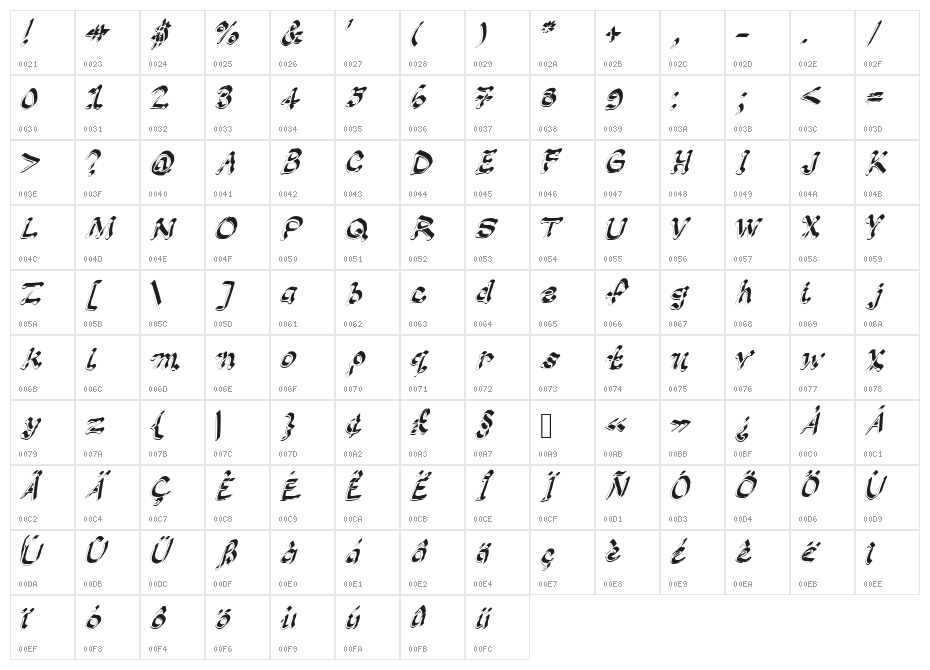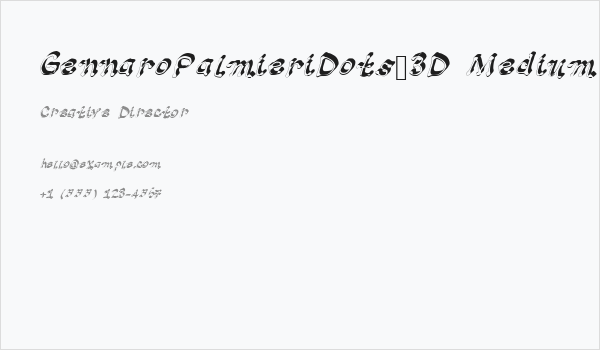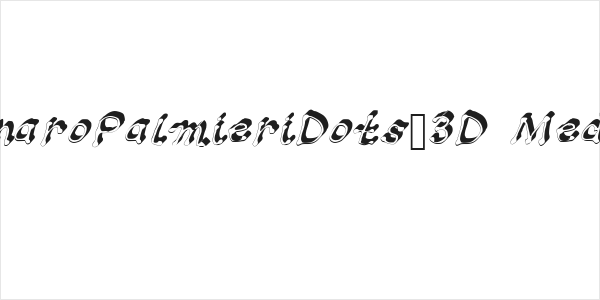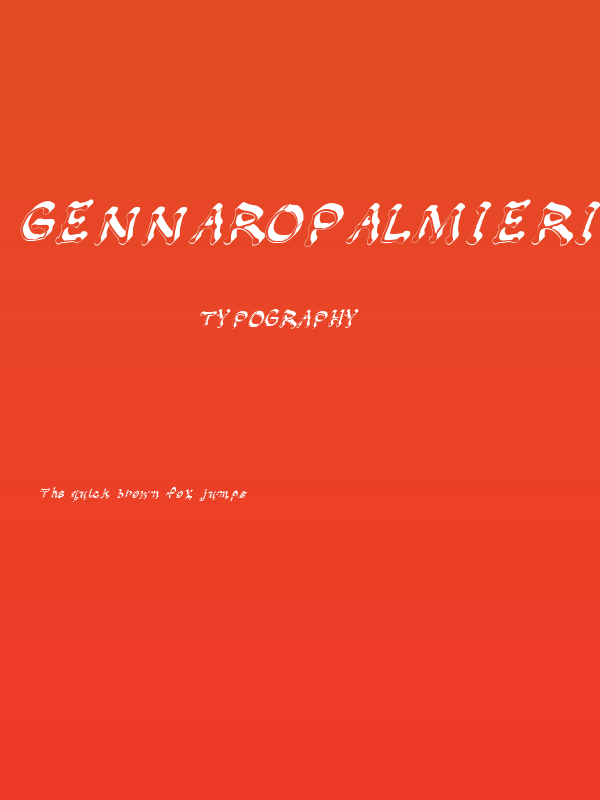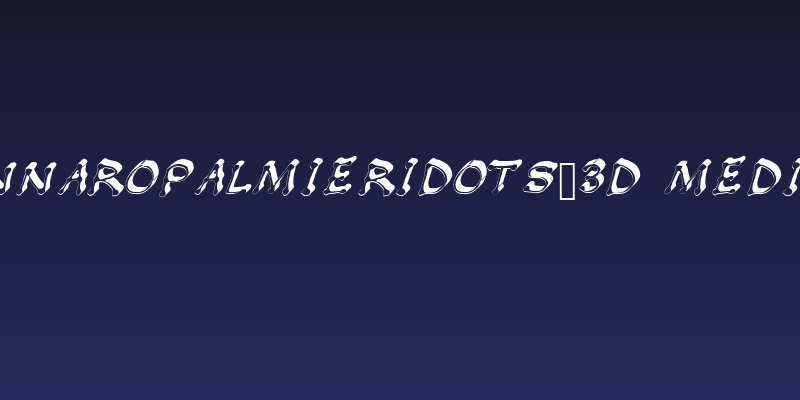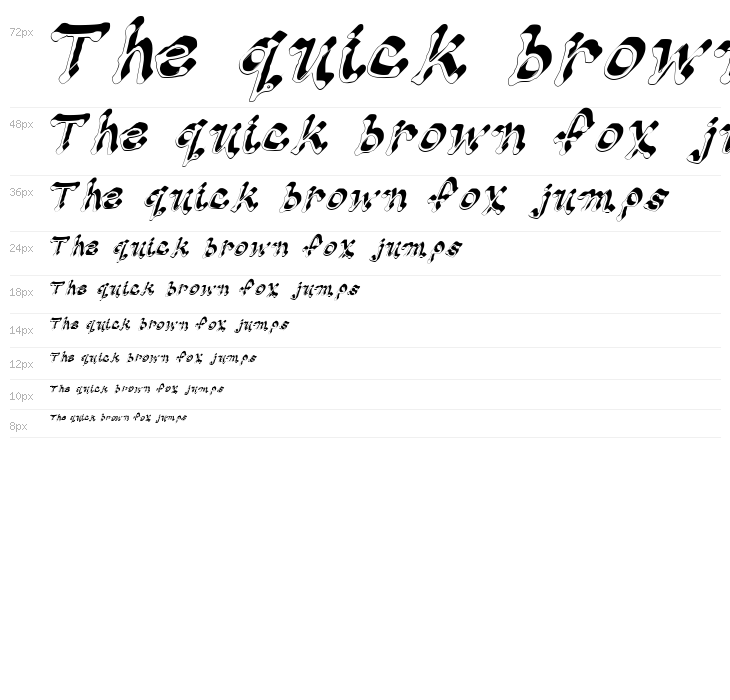
GennaroPalmieriDots_3D Medium Font
GennaroPalmieriDots_3D Medium Description
This font features a unique 3D effect that gives each character a shadowed, layered appearance. The letters are bold and dynamic, with a playful yet sophisticated style. The uppercase and lowercase letters maintain a consistent design, with smooth curves and sharp edges that enhance the three-dimensional illusion. Numbers and special characters are equally stylized, making them stand out with the same depth and visual interest. This font is perfect for projects that require a bold statement or a modern twist, offering a visually striking option for various design needs.
| Proposed Projects | Ideal for posters, logos, branding, and any design project that requires a bold, eye-catching font. |